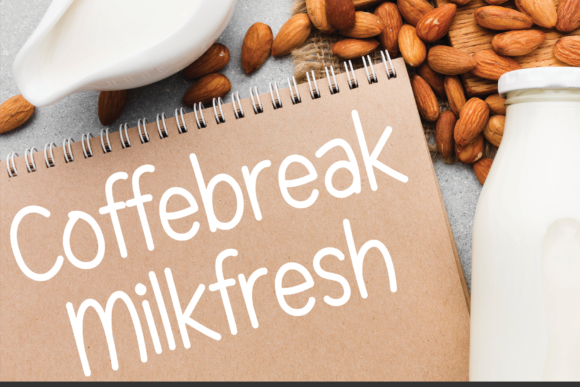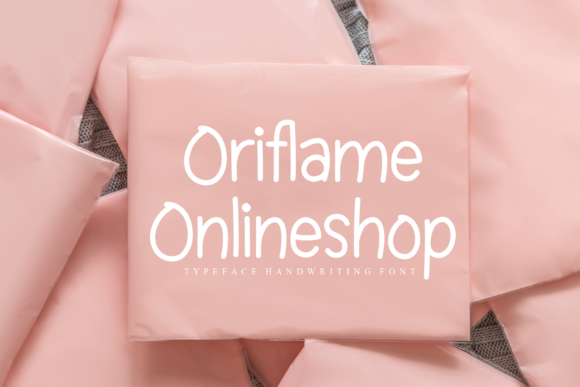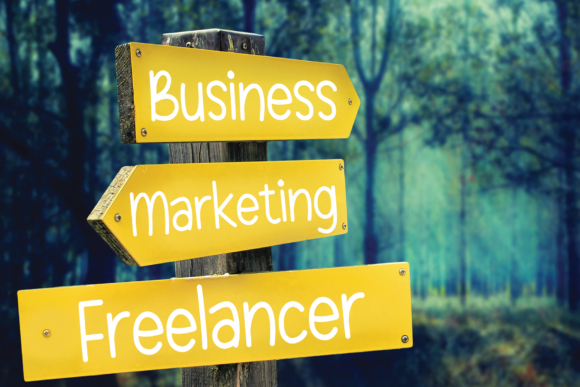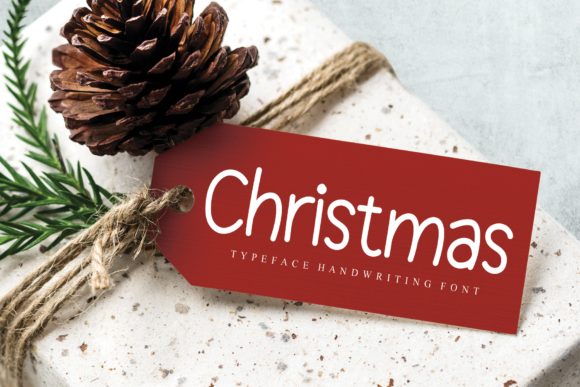
The Joy of Design: Discovering the Humming Font
You know that moment when you’re brainstorming ideas for a new project, and suddenly, a burst of creativity hits you? It’s like a spark of inspiration has ignited, and you can’t wait to bring your vision to life. For designers, this feeling is all too familiar. And for those who crave that extra oomph in their designs, we’re excited to introduce the Humming Font – a delightful display font that’s sure to put a smile on your face.
With its quirky, playful style, the Humming Font is perfect for adding a joyful touch to your designs. Whether you’re creating beautiful stationery art, eye-catching social media posts, or anything in between, this charming font is sure to make your creations stand out. As a designer, you know the value of a well-chosen font – it can make all the difference in setting the tone and mood of your project. The Humming Font is a valuable addition to any designer’s toolkit, offering a unique and whimsical touch that’s sure to delight.
Key Features of Humming Font
- Unique Characteristics: Humming Font features a unique blend of modern and vintage elements, with a distinctive hummingbird-inspired design that adds a touch of whimsy and playfulness to any text.
- Font Style: The font is available in a single style, but it can be used to create a variety of effects, from bold and playful to elegant and sophisticated.
Designer Review: Humming Font
At first glance, the Humming Font has some really interesting aspects that caught my attention. Here are some of the things that work well:
- ✨ Unique and playful style: The font has a distinctive hummingbird-inspired design that adds a touch of whimsy and personality to any text.
- ✨ Good legibility: Despite its playful nature, the font is still easy to read, even at smaller font sizes.
- ✨ Wide character set: The font includes a wide range of characters, including punctuation and special symbols.
- ⚠️ Limited font sizes: While the font is easy to read at smaller sizes, it can start to look a bit blurry or distorted at larger sizes.
- ⚠️ Limited style options: While the unique style is a major selling point, it may not be suitable for all design projects or audiences.
Overall, the Humming Font is a fun and creative choice for designers who want to add a touch of personality to their projects. While it may not be suitable for every project, it’s definitely worth considering for the right application. With a bit of care and attention to detail, the Humming Font can add a lot of visual interest and whimsy to your designs.
Humming Font is ideal for:
- Creatives and designers looking for a unique font style.
- Businesses that want to create eye-catching marketing materials.
- Individuals who want to add a personal touch to their presentations and documents.